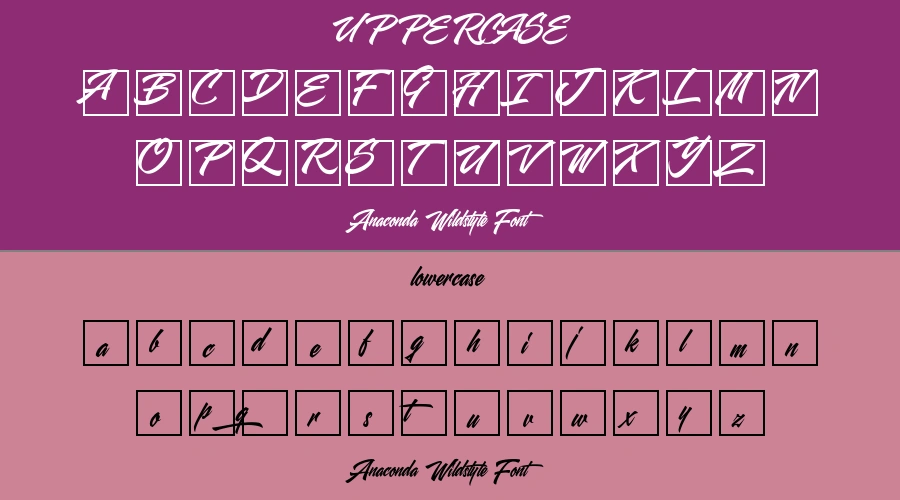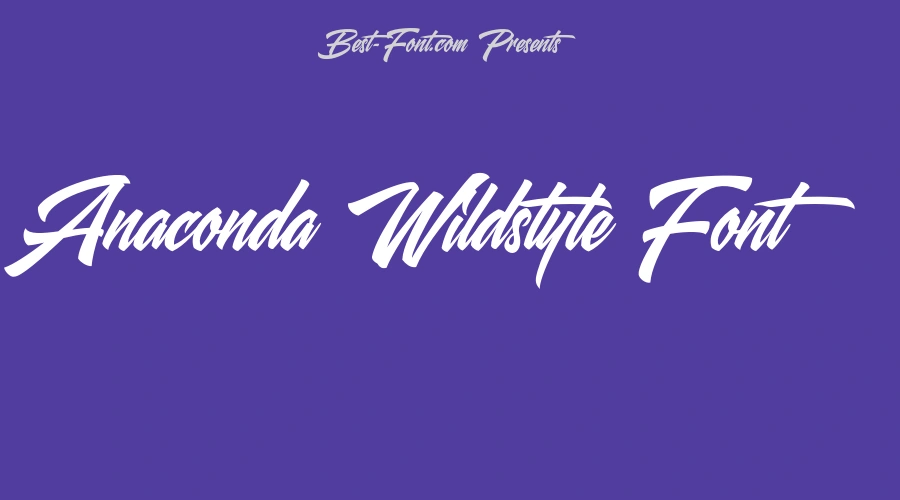
About Anaconda Wildstyle Font
Designed with precision, Anaconda Wildstyle Font merges hairline details with authenticity in every character. This versatility makes it particularly effective for event branding, where refinement and market relevance directly impact communication quality. Each letterform demonstrates meticulous craftsmanship.
Technical excellence shines through elements like sharp edges and stylistic sets, enhancing typographic versatility. In heritage publications settings, Anaconda Wildstyle Font proves its worth through superior multi-language support. The thoughtful execution of cap height ratio and lifestyle alignment ensures professional results.